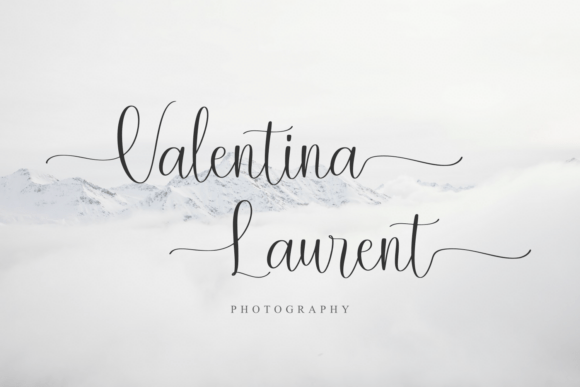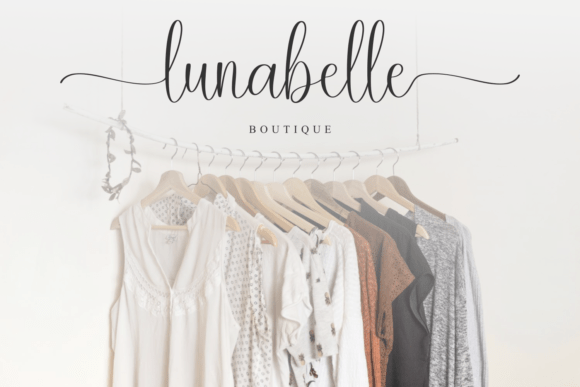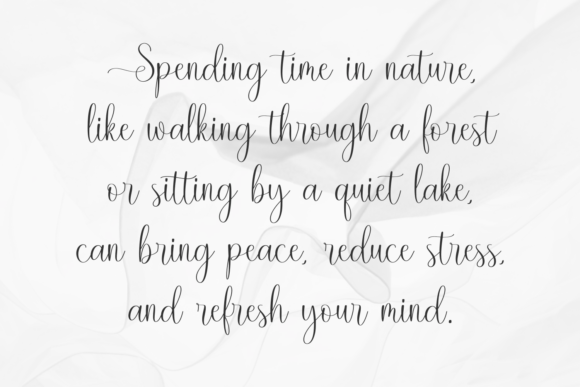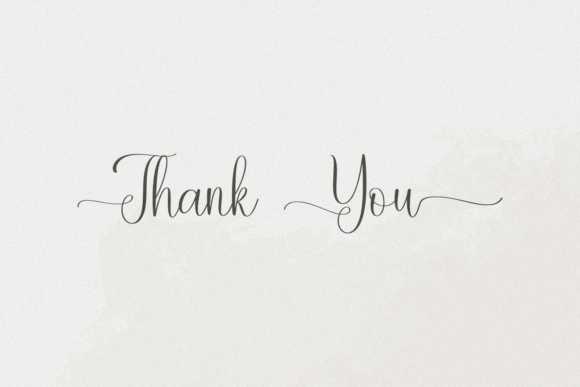
Introducing Elinalia Font: The Epitome of Elegance and Harmony
In the world of typography, a font can make all the difference in conveying the intended message and aesthetic appeal of a design. For designers and crafters seeking a font that embodies elegance, professionalism, and ease of readability, Elinalia Font is an exceptional choice. This simple yet sophisticated font is designed to bring harmonious beauty to various design projects, including graphic design, typography, branding, and more.
The Unique Characteristics of Elinalia Font
Elinalia Font stands out for its natural strokes that lend a sense of organic elegance to any design. Its simplicity is deceptive, as it packs a punch in terms of style and versatility. The font’s design ensures that it remains effortlessly readable, making it suitable for a wide range of applications, from digital platforms to print materials.
Elegance, Professionalism, and Readability
What makes Elinalia Font an excellent addition to your typography arsenal is its perfect blend of elegance and professionalism. The font’s clean lines and natural flow contribute to its readability, ensuring that your message is conveyed clearly and effectively. Whether you’re working on a branding project, creating engaging social media content, or designing marketing materials, Elinalia Font helps you achieve a polished and professional look.
PUA Encoding for Easy Access to Glyphs and Swashes
Elinalia Font takes versatility to the next level with its PUA (Private Use Area) encoding. This feature allows designers to access all glyphs and swashes easily, offering immense flexibility in customizing and personalizing their designs. With PUA encoding, you can unlock the full potential of Elinalia Font, experimenting with various stylistic elements to match your project’s unique needs.
Applications of Elinalia Font
The applications of Elinalia Font are vast and varied. Here are some areas where this font truly shines:
- Graphic Design: From brochures and flyers to posters and banners, Elinalia Font adds a touch of sophistication to any graphic design project.
- Typography: Create visually appealing text-based designs, quotes, and phrases that resonate with elegance and poise.
- Branding: Establish a strong brand identity with a font that communicates professionalism and style.
- Digital Content: Enhance your website, blog, or social media content with a font that offers readability and aesthetic appeal.
Why Choose Elinalia Font?
With numerous fonts available in the market, why should Elinalia Font be your go-to choice? Here are a few compelling reasons:
- Unique Aesthetic: Elinalia Font offers a distinct look that sets it apart from more common fonts.
- Versatility: Its PUA encoding and range of glyphs and swashes make it adaptable to various design needs.
- Readability: The font’s design prioritizes readability, ensuring your message is always communicated effectively.
- Ease of Use: Designed with the user in mind, Elinalia Font is easy to integrate into your projects.
Elinalia Font is more than just a typeface; it’s a design element that can elevate your projects with its harmonious beauty, elegance, and professionalism. Whether you’re a seasoned designer or a crafting enthusiast, this font offers the tools you need to create visually stunning and effective designs. With its natural strokes, readability, and PUA encoding for easy access to glyphs and swashes, Elinalia Font is poised to become your new favorite go-to font for a wide array of design applications.
Embrace the beauty of simplicity and the elegance of professional design with Elinalia Font. Explore its capabilities and discover how it can transform your design projects into masterpieces of typography and style.